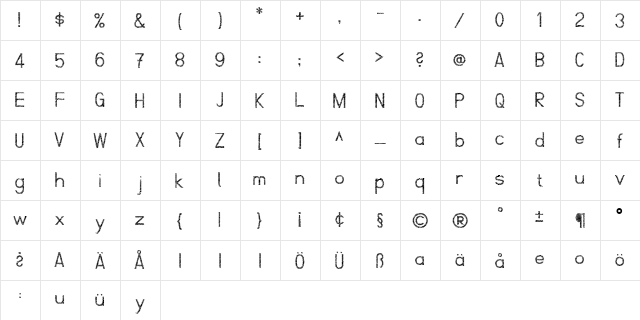
ScrFIBbLE Regular
| Foundry | Manuel Viergutz |
| Designer | Manuel Viergutz |
Design Context for ScrFIBbLE Typeface
ScrFIBbLE offers clean, dependable letterforms without strong stylistic allegiance, making it a practical choice for designers who need flexibility.